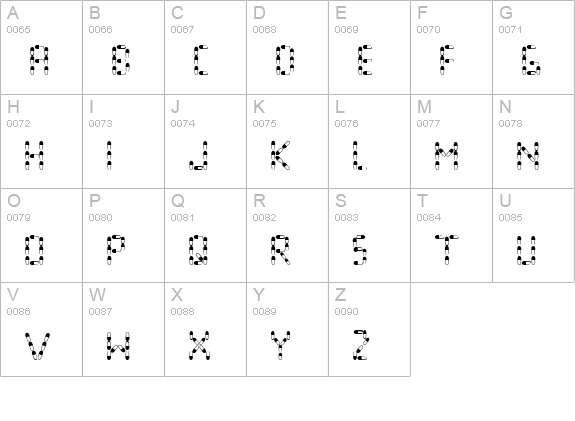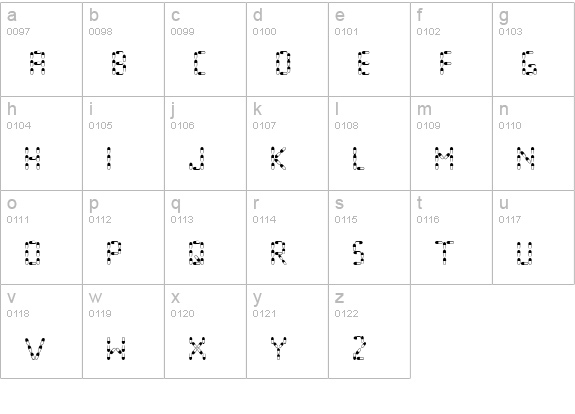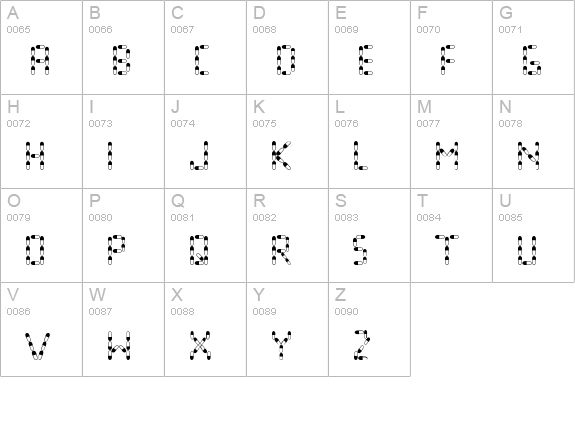
pills are good Font Details
Introducing Pills Are Good, a remarkable font that effortlessly combines elegance and playfulness, making it the perfect choice for any design project. Whether you are creating eye-catching posters, captivating logos, or unique social media graphics, this font is bound to grab attention and leave a lasting impression. With its clean lines and bold curves, Pills Are Good exudes a sense of confidence and modernity. Its versatile nature allows for seamless integration into a wide range of styles and themes, ensuring that your designs will always stand out from the crowd. But what truly sets Pills Are Good apart is its commitment to freedom. This extraordinary font is not only visually stunning but also freely available for you to download at FontsMarket.com. Yes, you read that right – it's absolutely free! No need to worry about breaking the bank or compromising on quality. Pills Are Good empowers you to unleash your creativity without any limitations. So go ahead, embrace the freedom that Pills Are Good brings to your design arsenal. Let its captivating charm elevate your projects to new heights, making a statement that is truly unforgettable. Download Pills Are Good today at FontsMarket.com and experience the power of free expression.